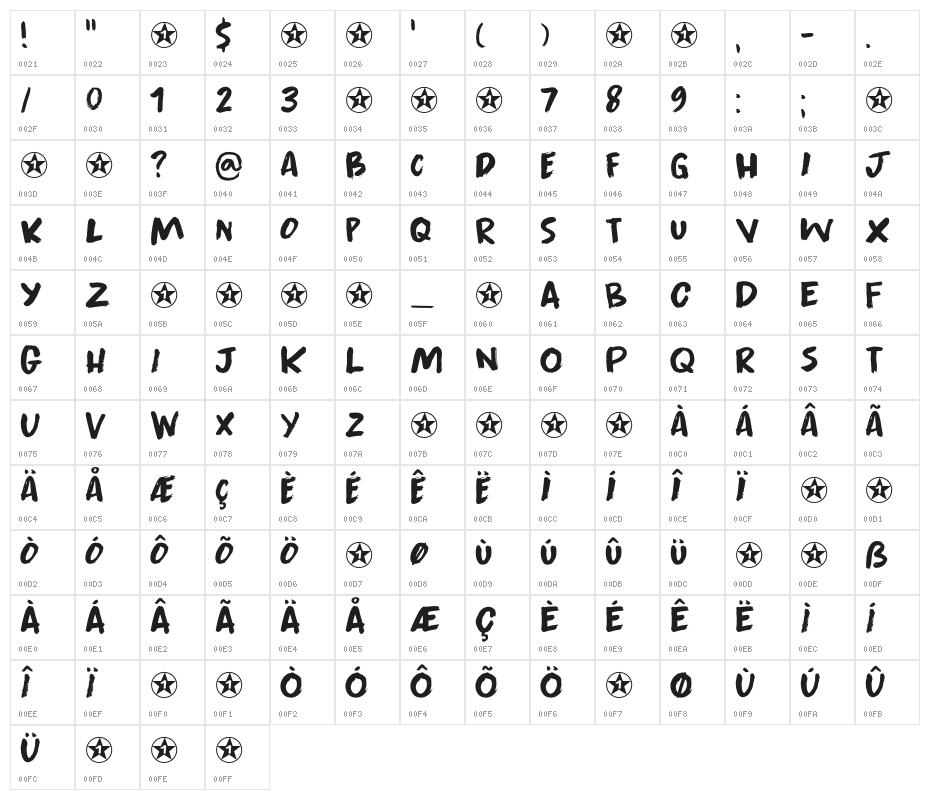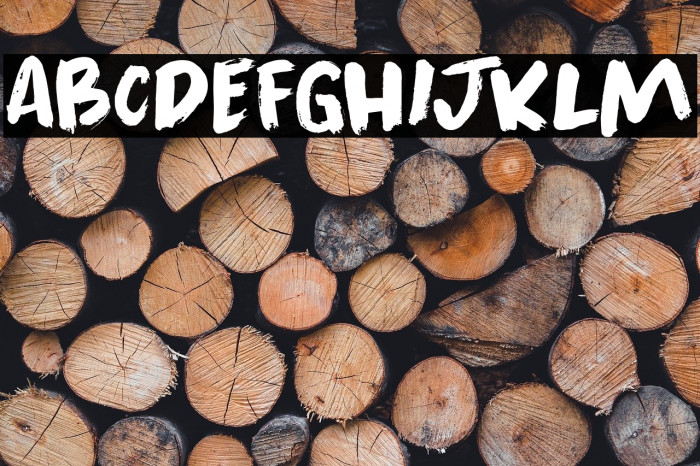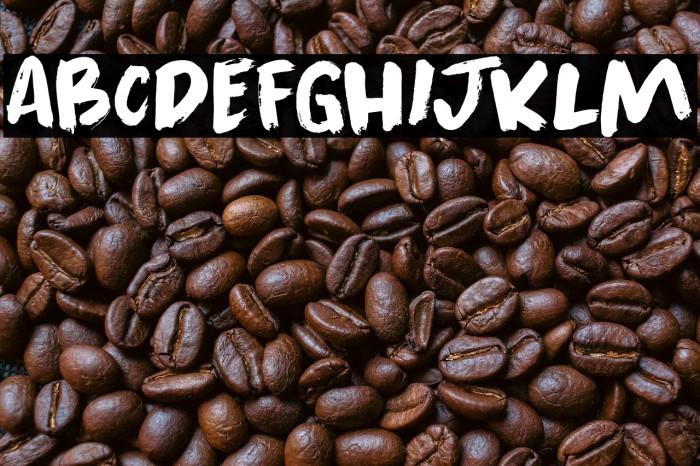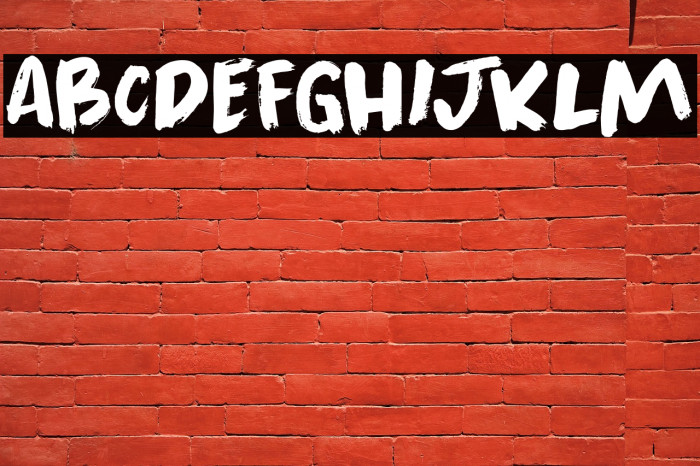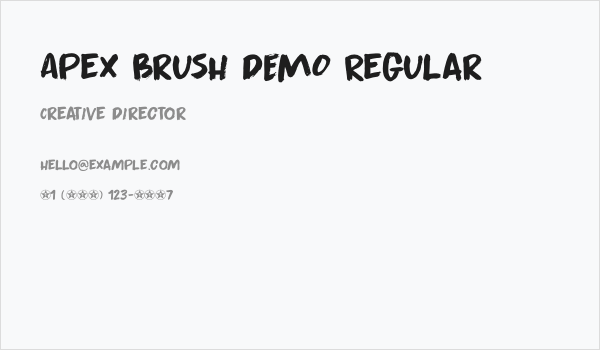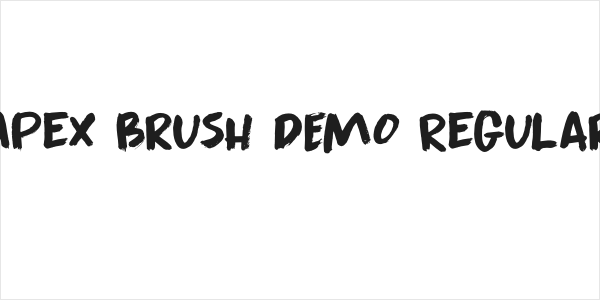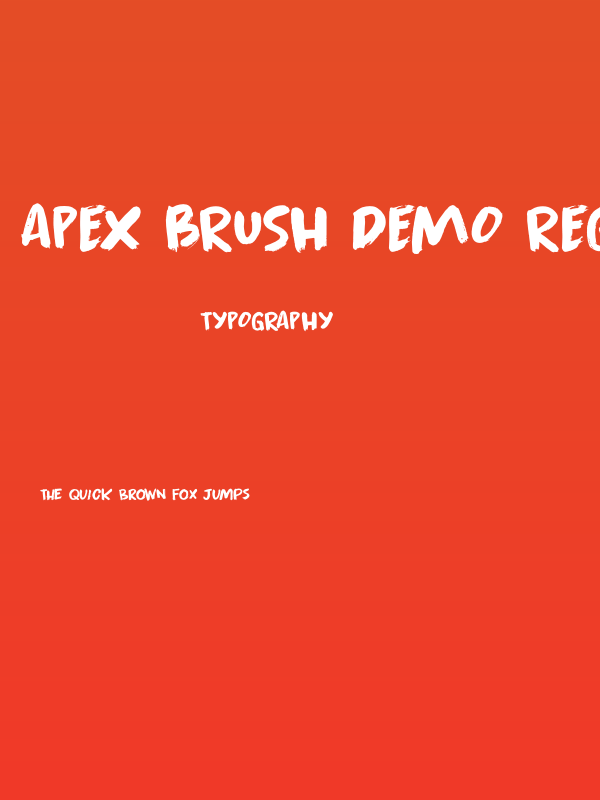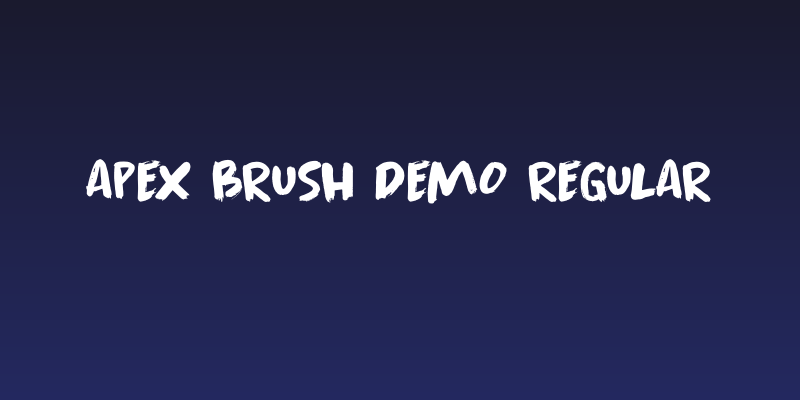
Apex Brush DEMO Regular Font
Apex Brush DEMO Regular Description
This font exudes a bold and energetic brush style, characterized by its dynamic and expressive strokes. The letters appear hand-painted, with a natural flow and slight irregularities that add to its charm. The uppercase and lowercase letters maintain a consistent style, with thick, bold lines that give a sense of movement and vitality. The numerals and special characters follow the same aesthetic, ensuring a cohesive look across all text. This font is perfect for projects that require a personal touch or a bold statement, such as posters, branding, or artistic designs.
Proposed ProjectsIdeal for posters, branding, artistic designs, and any project needing a bold, personal touch.